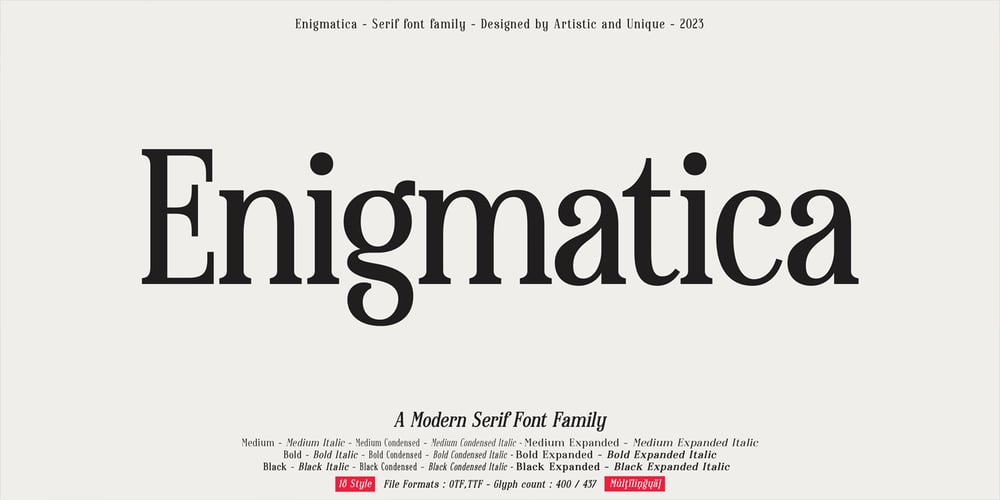
Enigmatica Font Family was designed by Osman Taner Kucukgenc and published by Artisticandunique. Enigmatica contains 18 styles and family package options. Enigmatica – Serif font family – 18 Styles – Multilingual supportsEnigmatica is a stylistic and powerful serif font family with different alternative type designs. You will have the opportunity to enrich the content of your projects with alternative characters.This font comes with multilingual support and 18 styles. It has an elegant structure that can be effective in the development of your projects.Especially for editorials, magazines, books, branding, logo design, web design, headlines, movie titles etc.If you are looking for a font with stylistic alternatives, Enigmatica serif font might meet your needs.With this font you can create your unique designs.If you have a question, please contact me.Have a good time.